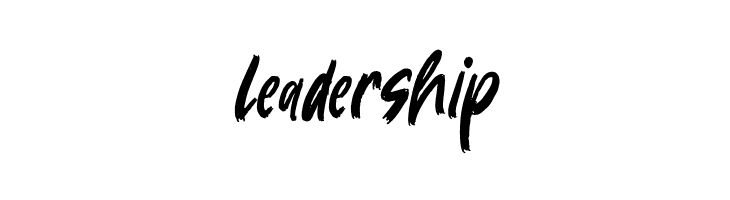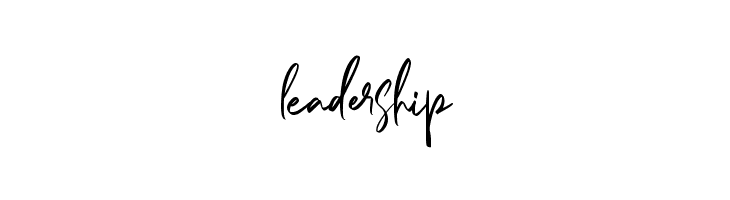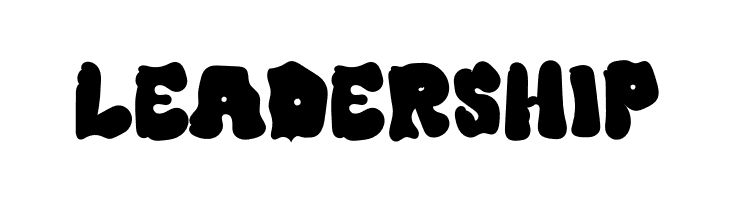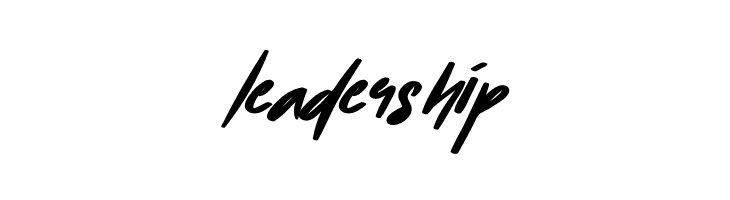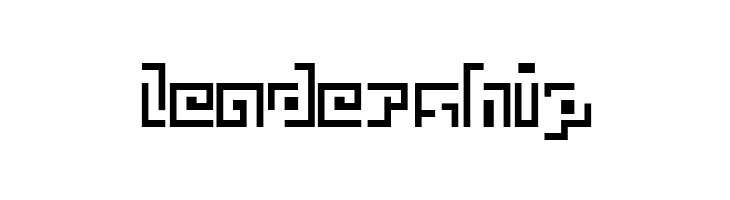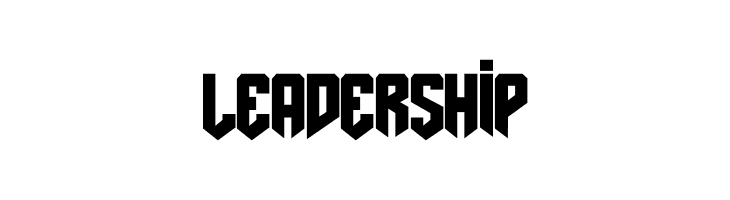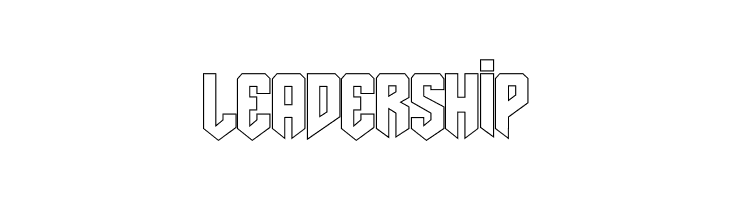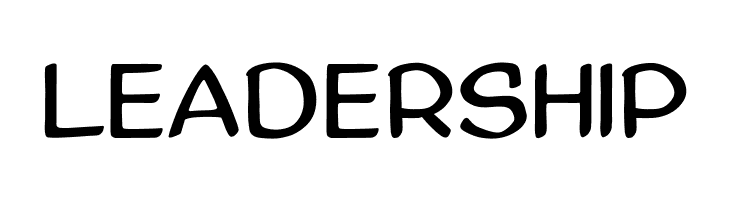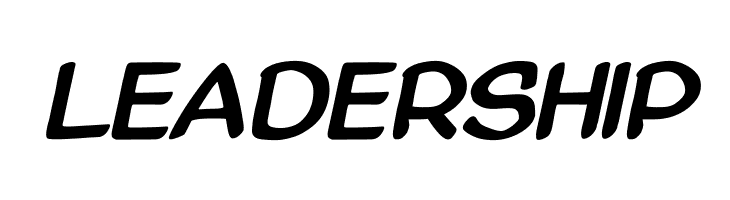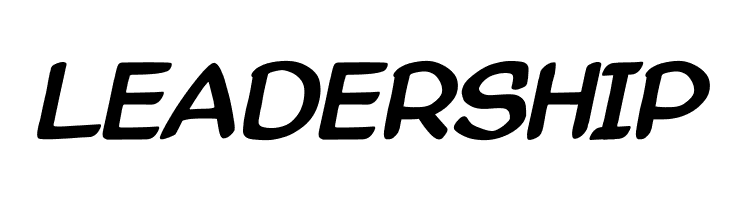
• AmazDooMRight
( Fonts by Amazingmax - Maxim Avdeev )
A bold, angular font with a futuristic and aggressive style.
• AmazDooMRight2
( Fonts by Amazingmax - Maxim Avdeev )
A bold, angular font with a futuristic and aggressive style.
• AmazDooMRightOutline
( Fonts by Amazingmax - Maxim Avdeev )
A bold, geometric outline font with a futuristic and dynamic style.
• Amaze
( Marios )
A playful, hand-drawn font with a whimsical and casual style.
• Amaze Bold
• Amaze Normal
• amazeballs
( Marios )
A playful, handwritten font with rounded edges and a casual style.
• Amazed
( Fonts by Jadatype )
Bold, expressive handwritten script font.
• Amazed Breath
A lively and expressive script font with dynamic curves and fluid strokes.
• Amazed Breath
A lively, handwritten-style font with fluid, dynamic strokes.
• AmazGoDa
( Fonts by Amazingmax - Maxim Avdeev )
A playful, rounded font with bold, smooth characters and a friendly style.
• AmazGoDaBold
( Fonts by Amazingmax - Maxim Avdeev )
A bold, slanted font with rounded, smooth characters for a modern look.
• AmazGoDaMat
( Fonts by Amazingmax - Maxim Avdeev )
A playful, rounded font with bold, smooth curves and a friendly appearance.
• AmazGoDaMatBold
( Fonts by Amazingmax - Maxim Avdeev )
A bold, dynamic font with rounded edges and a playful, italicized style.
• AmazHacker
( Fonts by Amazingmax - Maxim Avdeev )
A pixelated, geometric font with a retro digital style.
• AmazHand_First
( Fonts by Amazingmax - Maxim Avdeev )
A bold, hand-drawn font with an expressive and dynamic style.